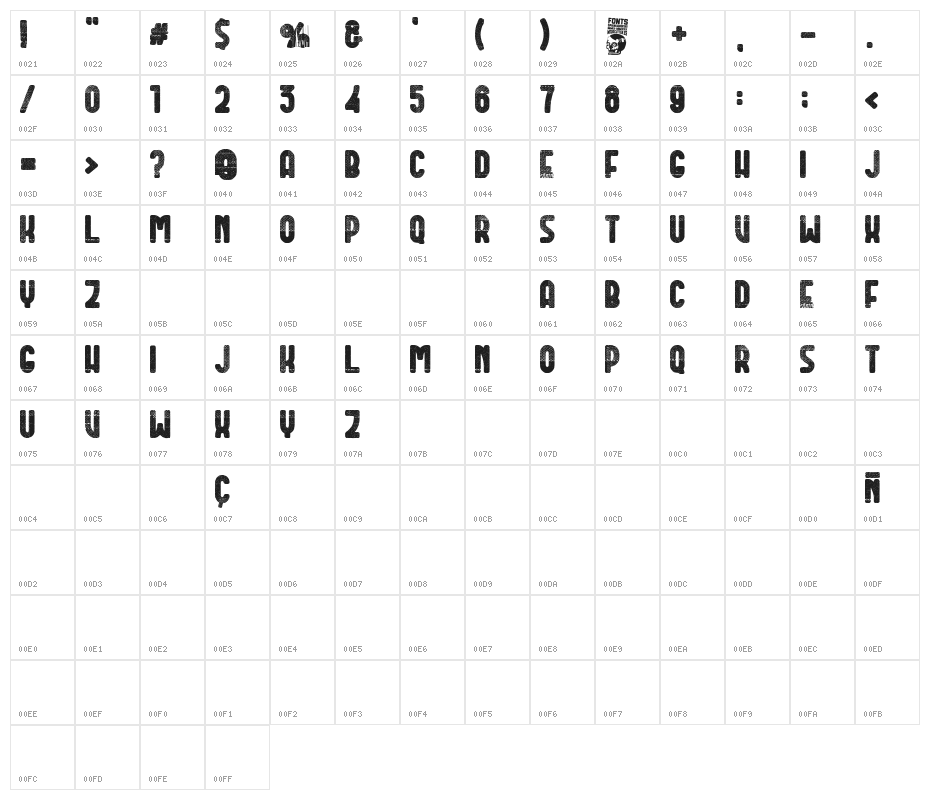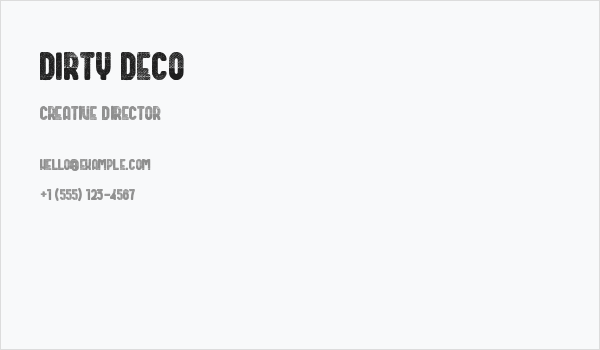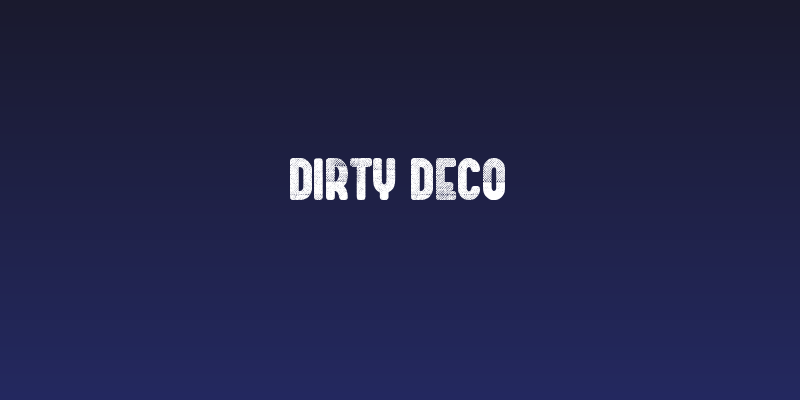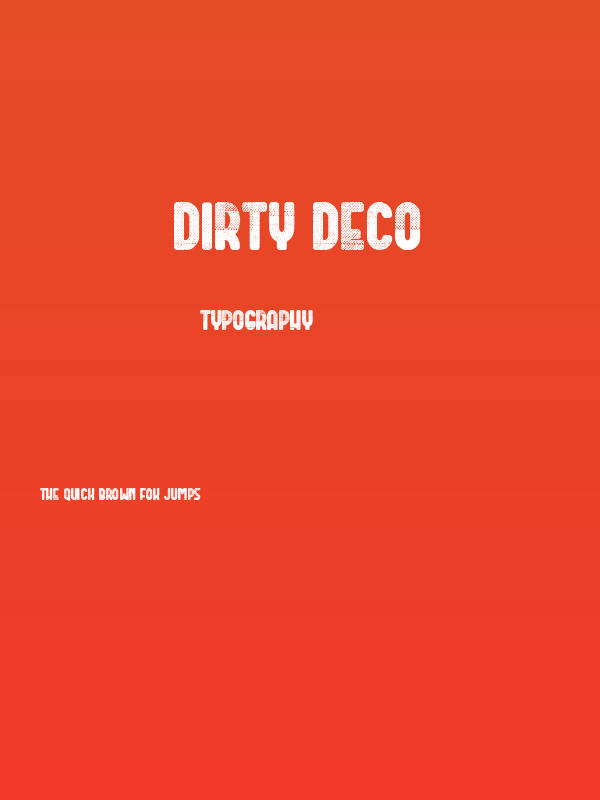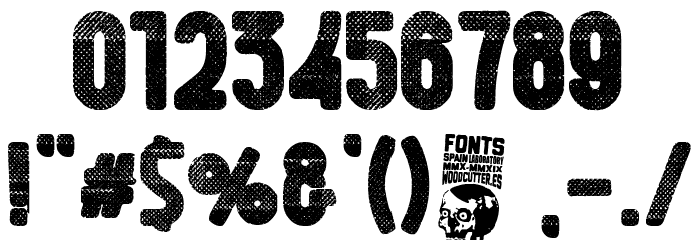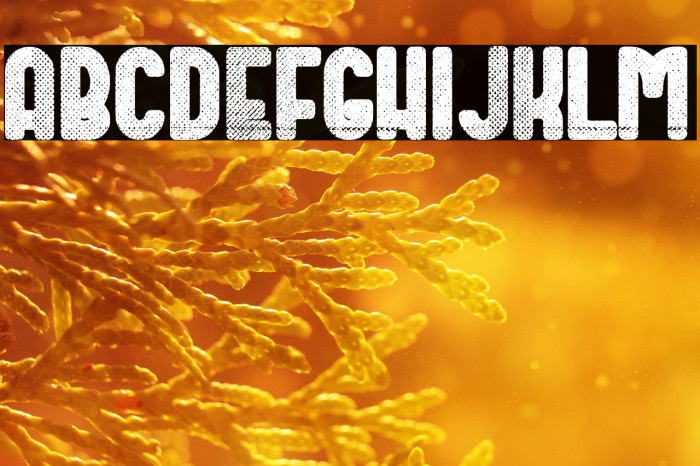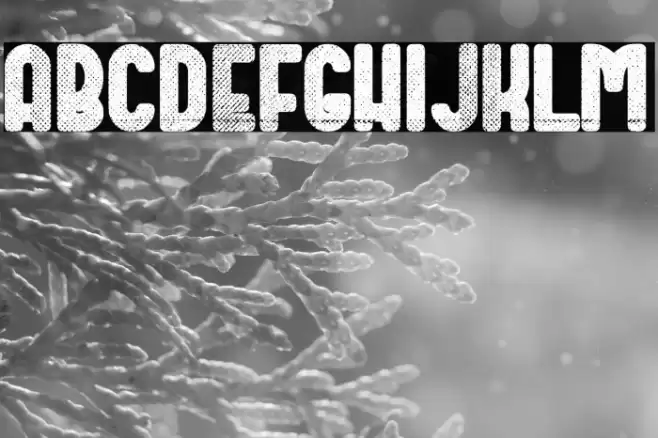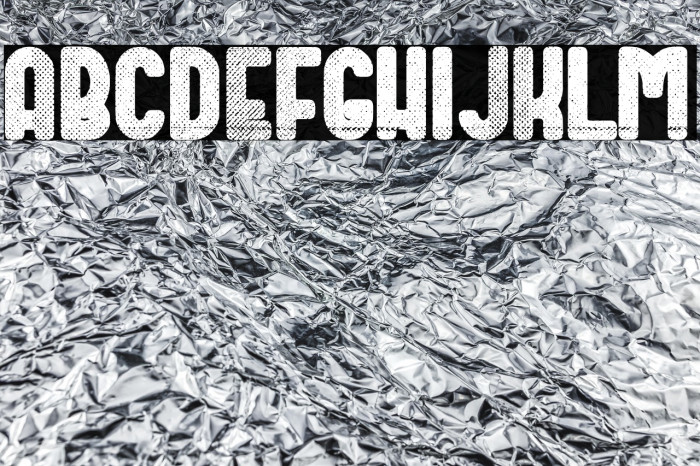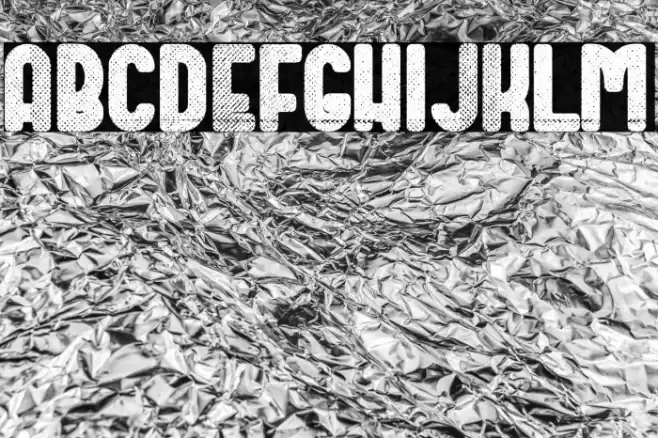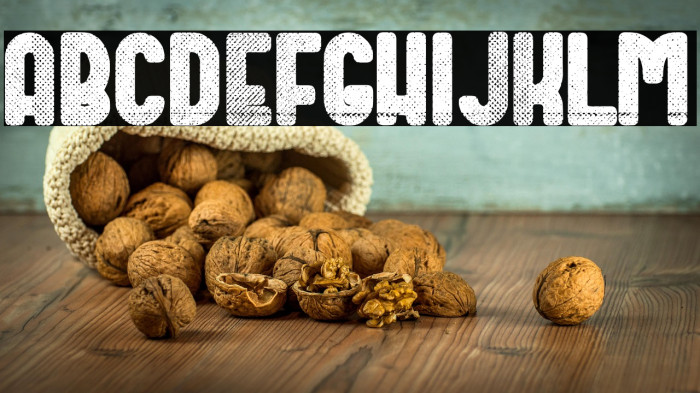
Dirty Deco Font
Dirty Deco Description
This font features a bold, textured style with a distressed, vintage appearance. The characters are thick and blocky, with a unique speckled pattern that gives them a worn, rugged look. The uppercase and lowercase letters maintain a consistent width, creating a uniform appearance across the alphabet. Numbers and special characters are designed with the same textured effect, enhancing the overall cohesive style. The font's boldness and distinctive texture make it stand out, ideal for projects that require a strong visual impact.
| Proposed Projects | Ideal for posters, album covers, branding, and any design project that requires a bold, vintage aesthetic. |